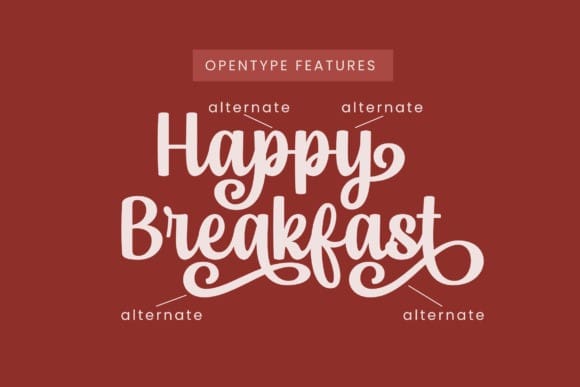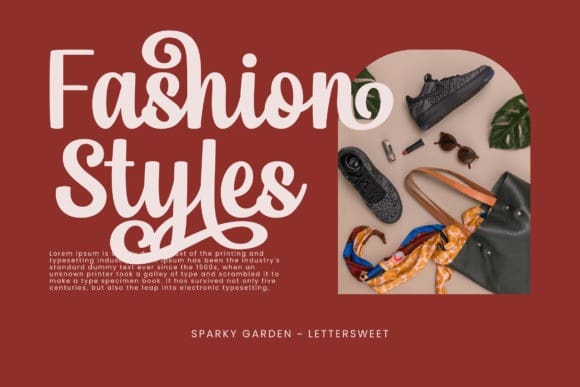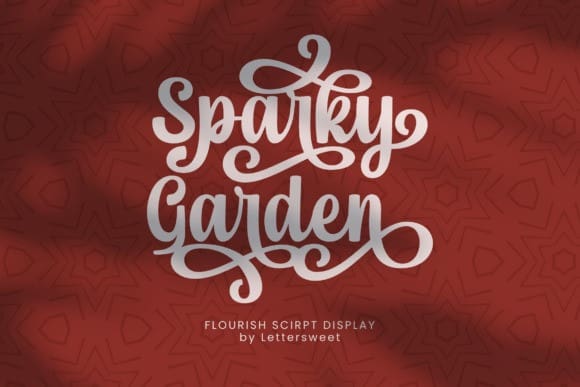
Sparky Garden Font
Sparky Garden Font, a charmingly timeless handwritten font. Cherished for its array of alternatives, SparkyGarden has the astonishing ability to transform your designs, delivering a stunning burst of originality. From creating logos that truly pop to conjuring dramatic branding and thought-provoking quotes, it’s all about giving your design that added allure. Plus, the icing on the cake: Sparky Garden font is PUA encoded for seamless access to all glyphs and swashes, making your design process as smooth as a breeze.